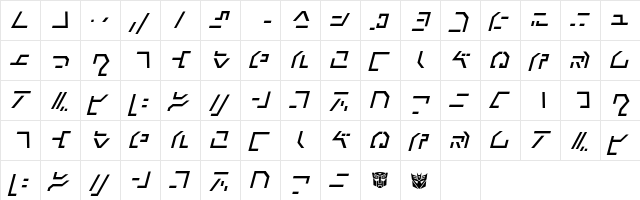
Modern Cybertronic Italic
Design Context for Modern Cybertronic Typeface
Modern Cybertronic has a distinctly futuristic character, with geometric precision and clean angles that feel at home in technology, gaming, and sci-fi contexts. Its italic angle brings a sense of urgency and motion to the letterforms.